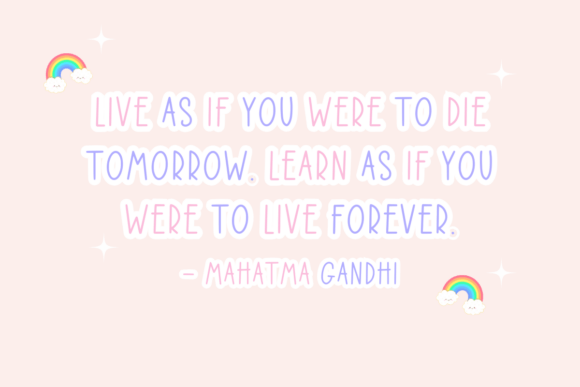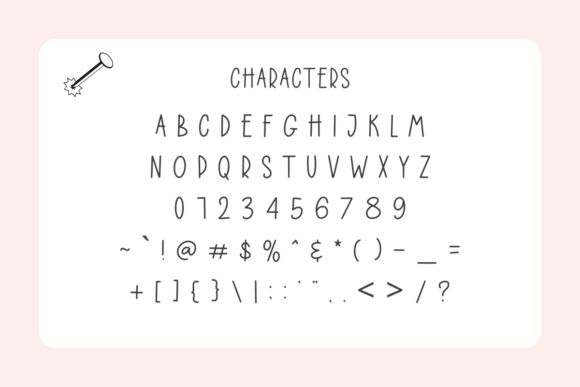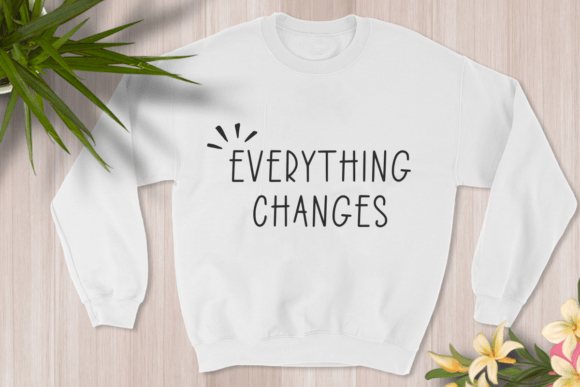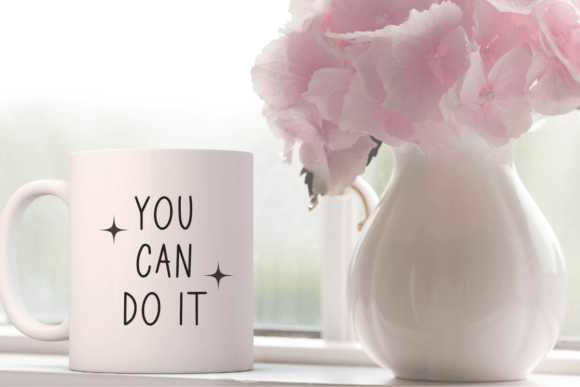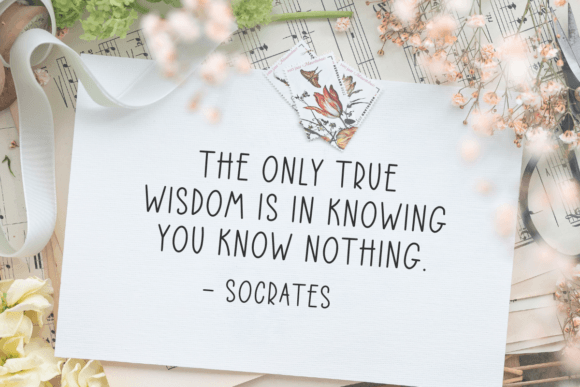
Introduction to Pattern Shiny Font
Pattern Shiny is a fun sans serif font.
Pattern Shiny Font offers exceptional quality and versatility, making it a valuable addition to your design toolkit. Whether you’re creating for personal projects or commercial use, Pattern Shiny Font delivers professional results.